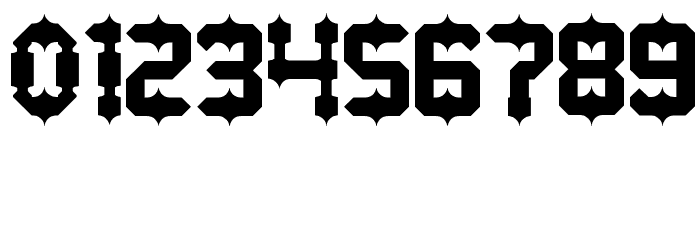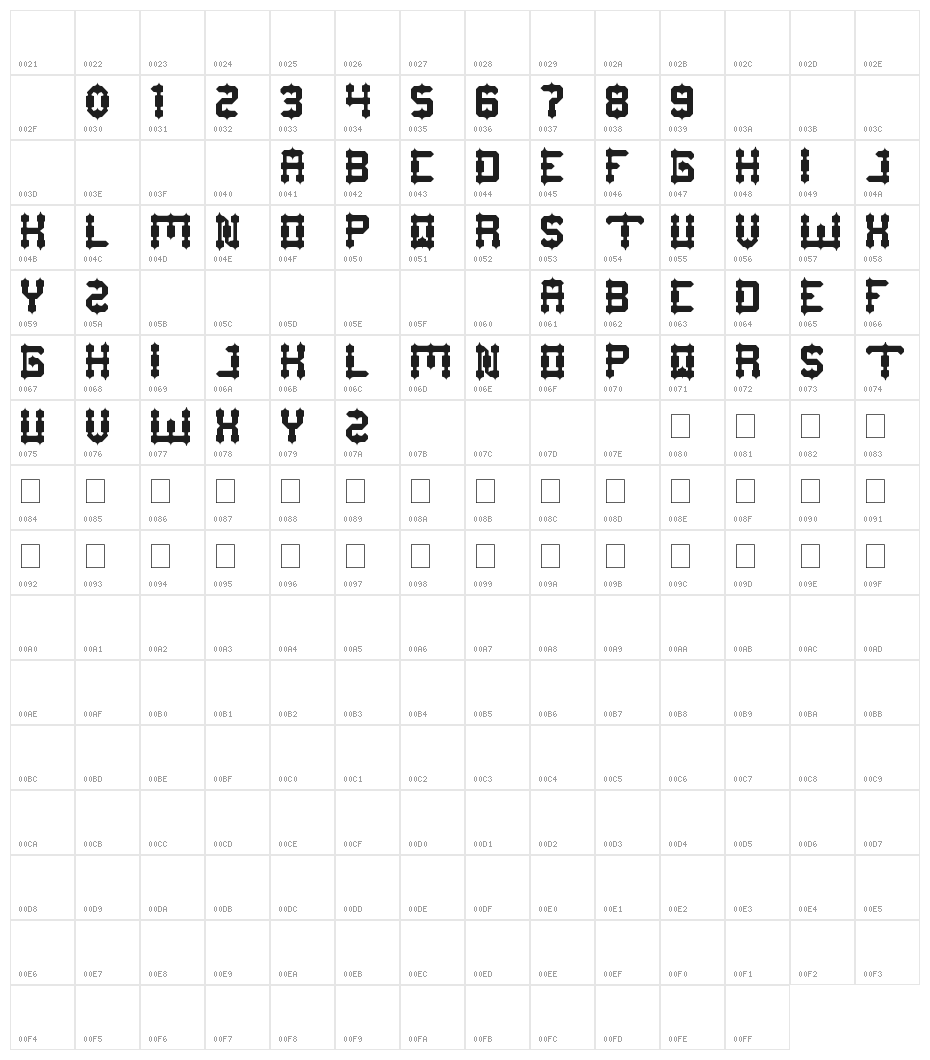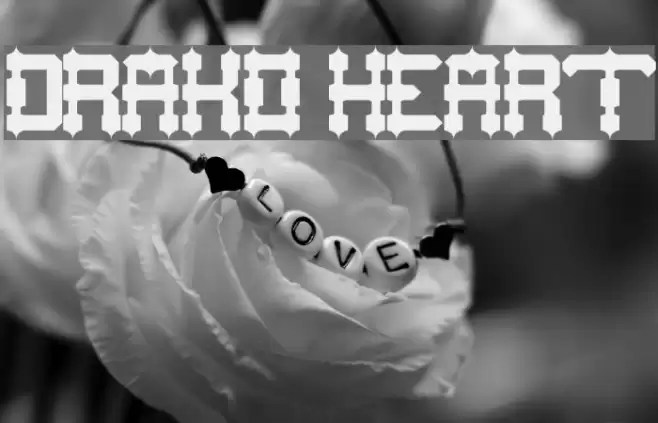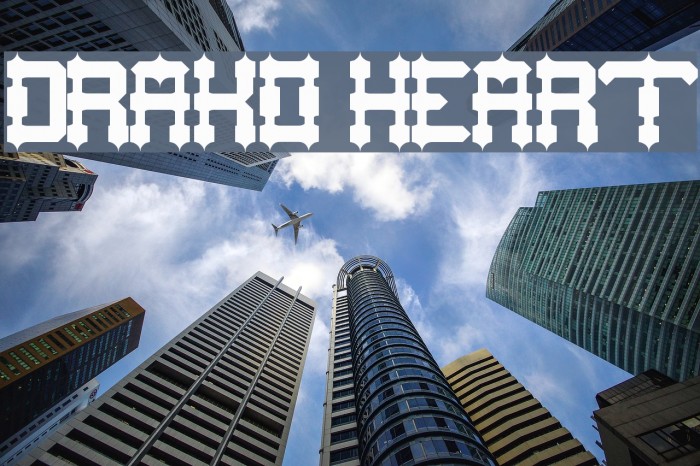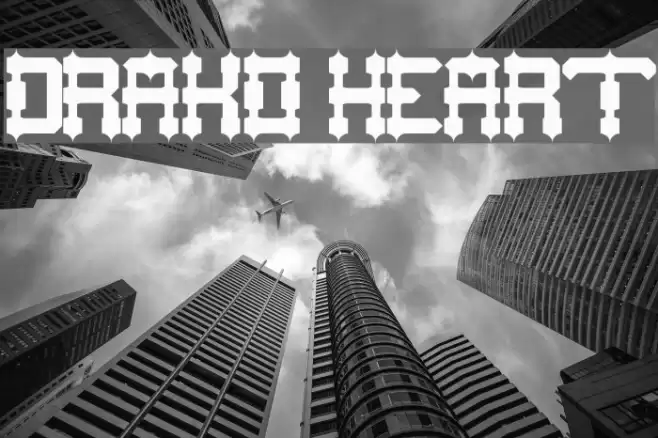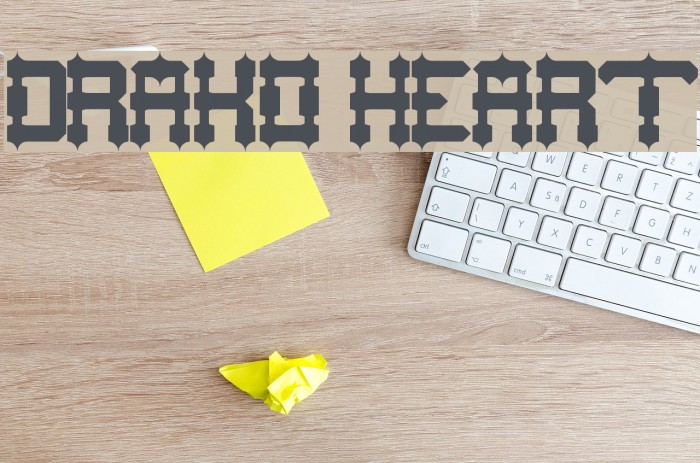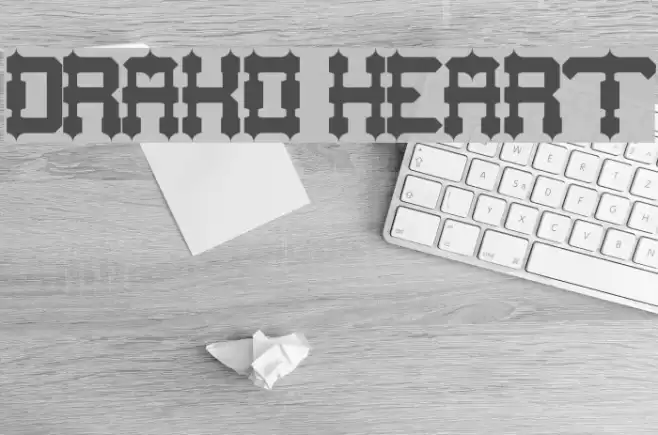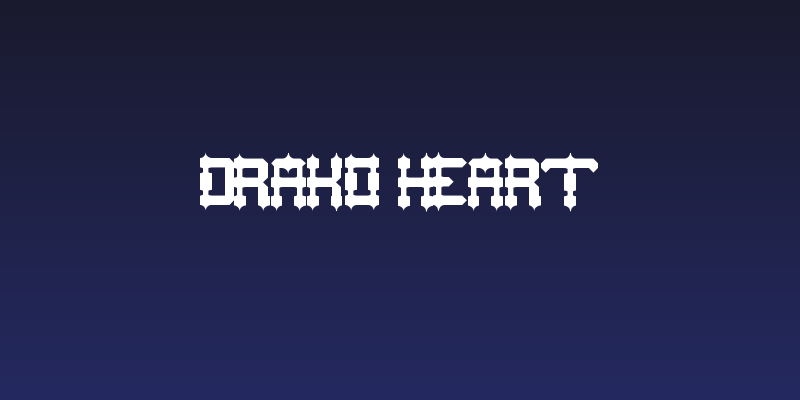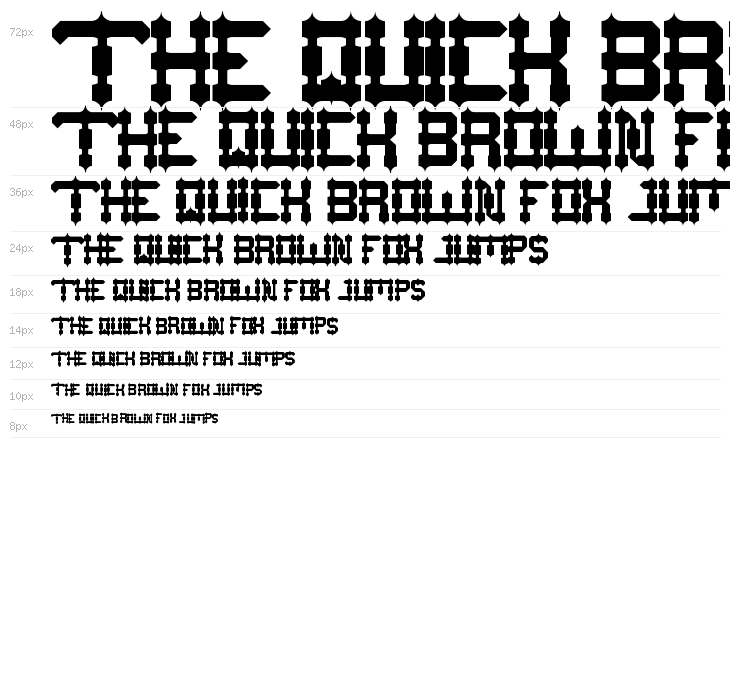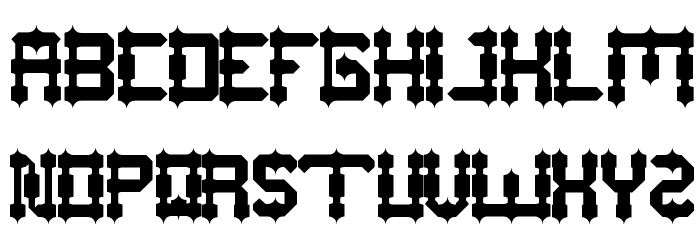
DRAKO HEART Font
DRAKO HEART Description
This font features a bold and striking design with a gothic, medieval flair. The characters are heavily stylized with sharp, angular edges and intricate detailing, reminiscent of ancient scripts or heraldic symbols. The uppercase and lowercase letters maintain a consistent weight and style, creating a cohesive and dramatic appearance. The numbers and special characters follow the same ornate design, ensuring uniformity across all elements. This font's unique aesthetic makes it ideal for projects that require a strong visual impact.
| Overall Style | Gothic, Medieval |
| Proposed Projects | Ideal for fantasy-themed designs, video game titles, movie posters, and branding that requires a dramatic and medieval touch. |